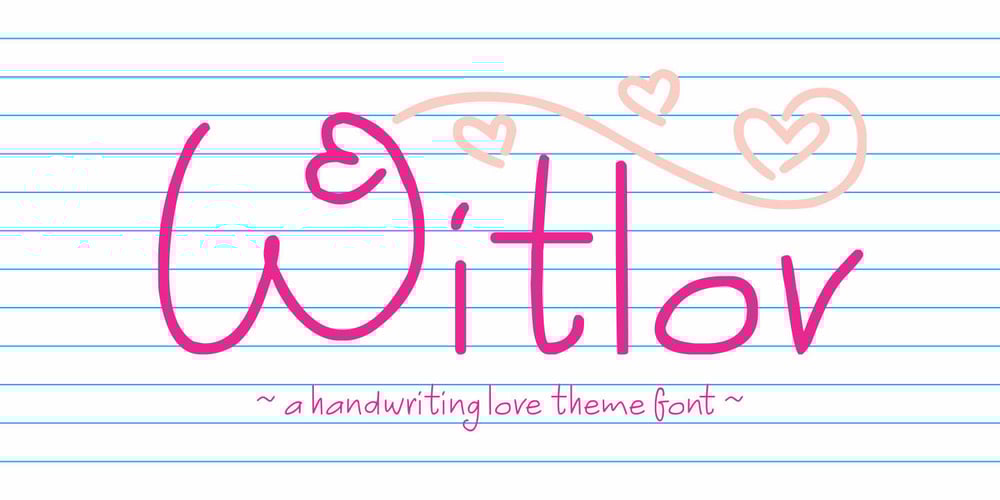
Witlov Font Family was designed by Muhammad Nazarudin and published by Niznaztype. Witlov contains 2 styles and family package options. Introducing Witlov Font, a handwritten typeface with simple andnatural style. Witlov have a love and cute themes for uppercaseglyphs and for lowercase is a basic styles.Witlov consist of :Uppercase, lowercase, numeral and punctuation and alsomultilingual. Plus bonus ornament to make your design morebeauty.Witlov have two styles, regular and italic. This font suitable forthemes such as love, wedding, young people, friendship, school,kids, student, children etc.Please, enjoy it with Witlov, a new handwritten font.If you have any question, please send to emnazar2009@gmail.com